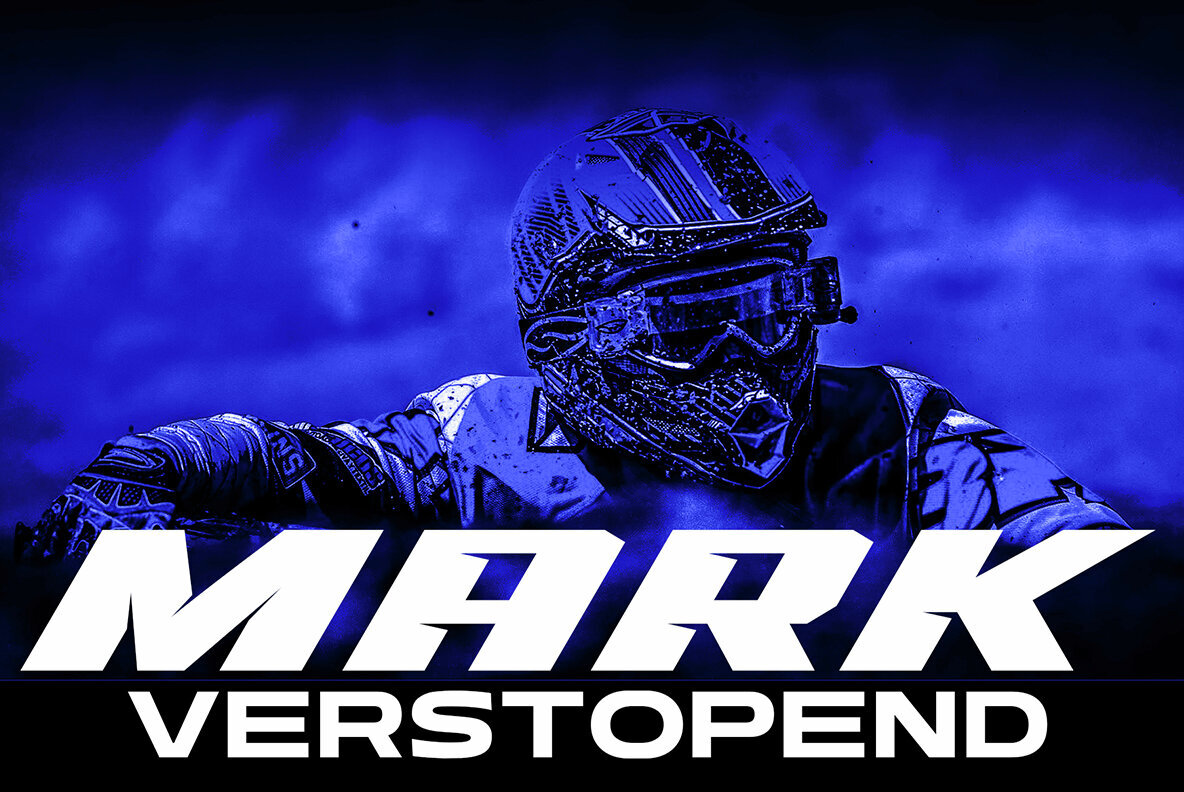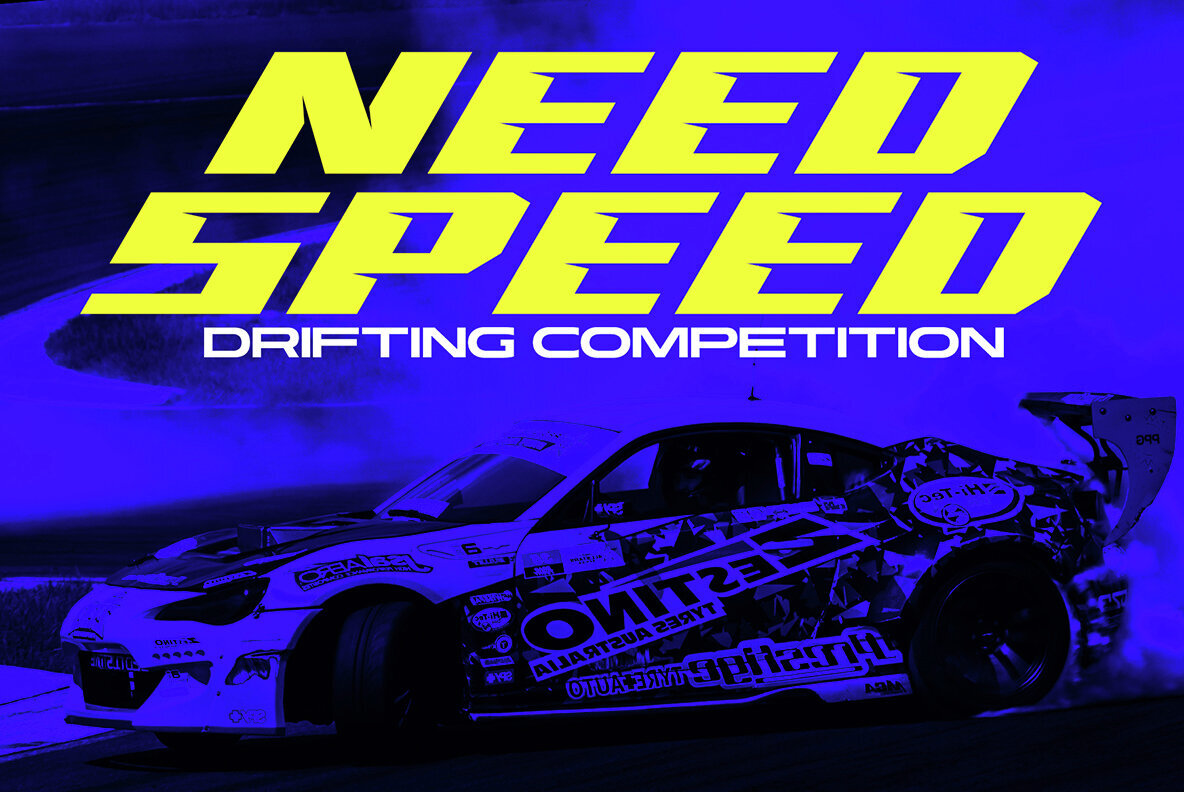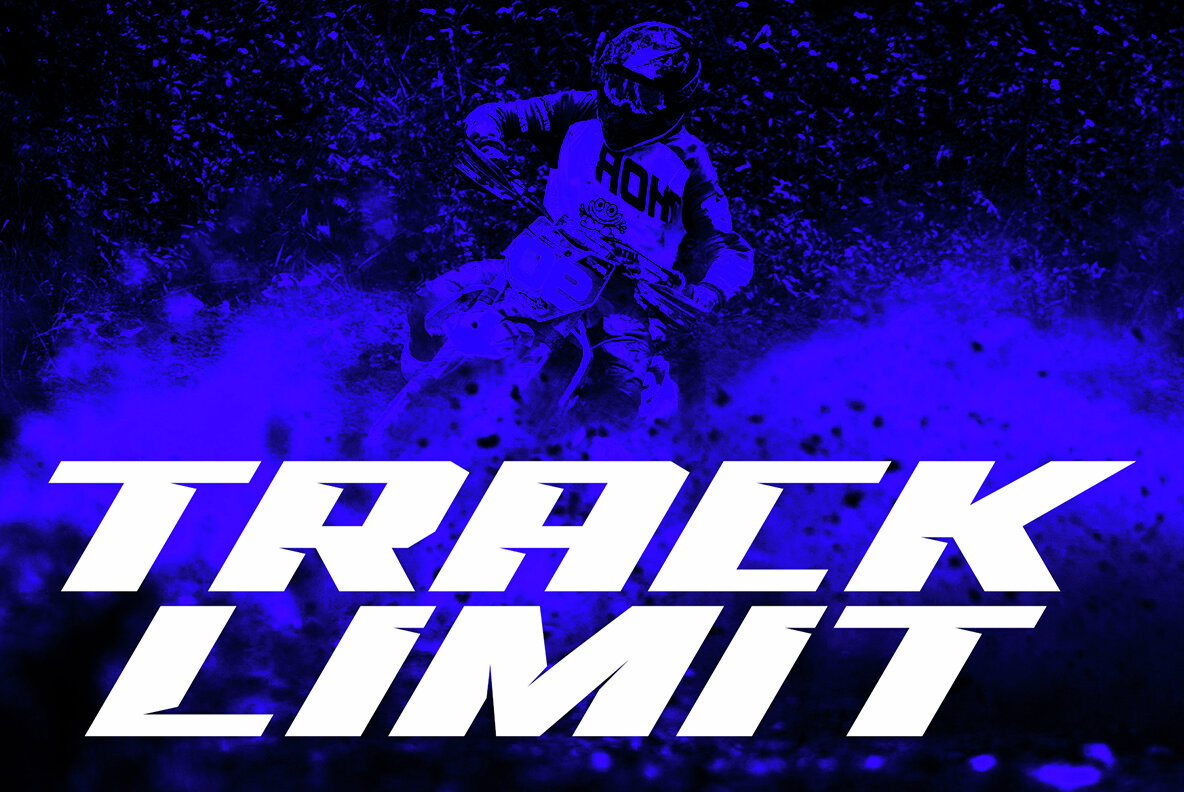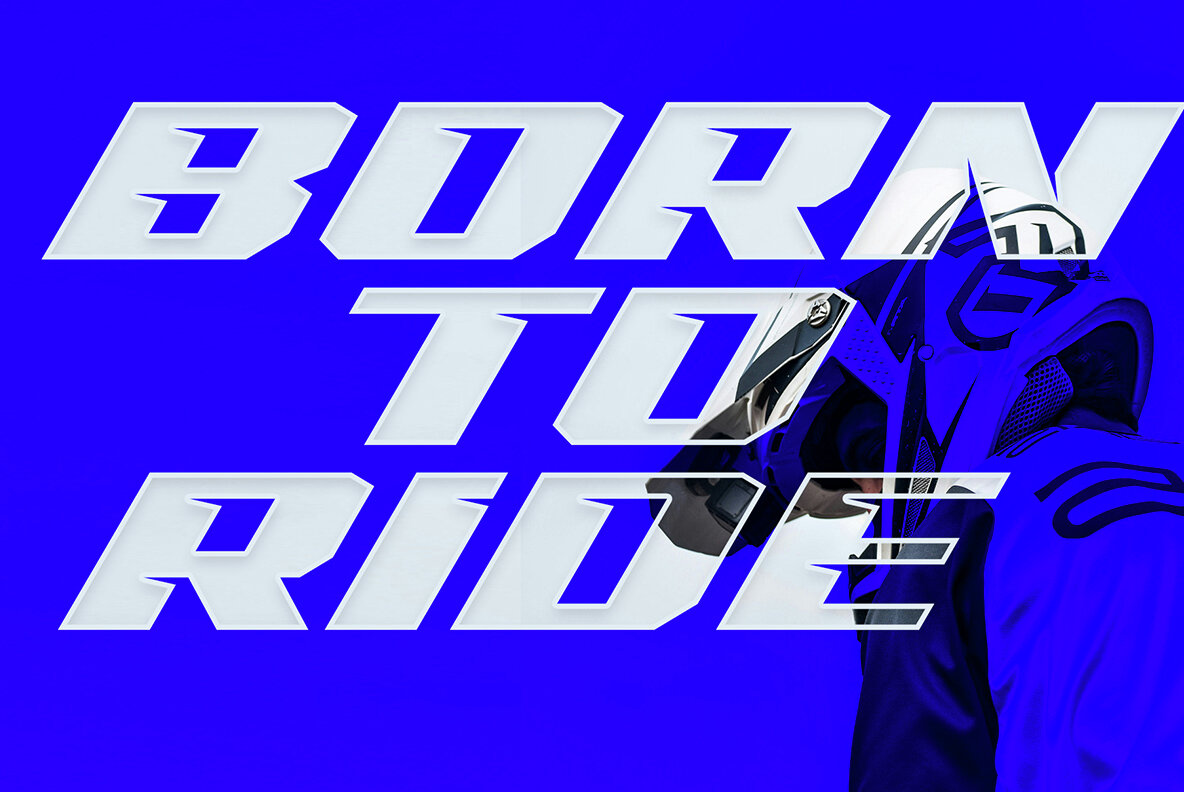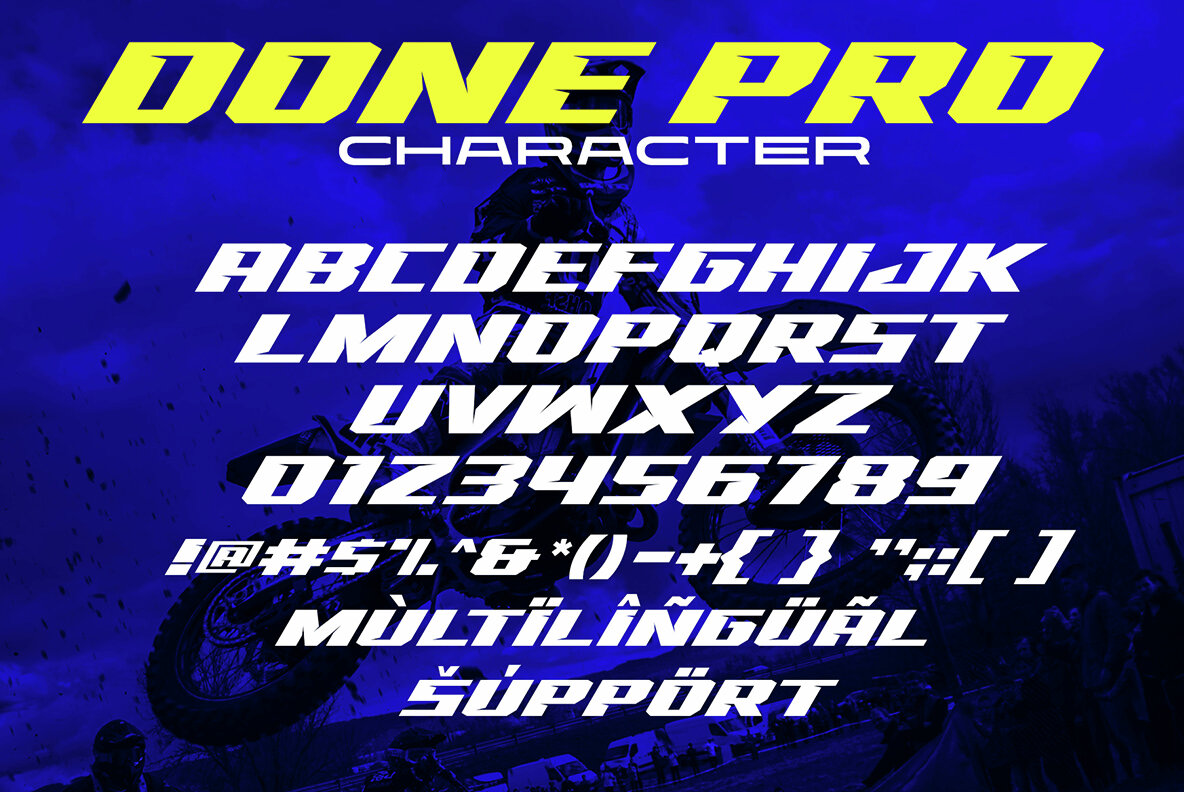
Racing Done Pro Font
Racing Done Pro Regular
Racing Done Pro is a sport-themed font designed to convey strength, speed, and consistency. Its bold shapes and precise cutting effects make it an excellent choice for logotypes, racing game covers, and sports events. It can also enhance automotive posters, magazine covers, branding projects, product designs, and labels. This font is tailored for those who seek a dynamic and powerful visual presence in their creative work.
The features include all caps, numbers, and symbols, ensuring versatility for various uses. It is compatible across multiple platforms such as Adobe Illustrator, Adobe Photoshop, Adobe InDesign, and even Microsoft Word. Racing Done Pro offers PUA encoded characters, making it fully accessible without needing additional design software. It also supports multiple languages, broadening its usability for global projects.